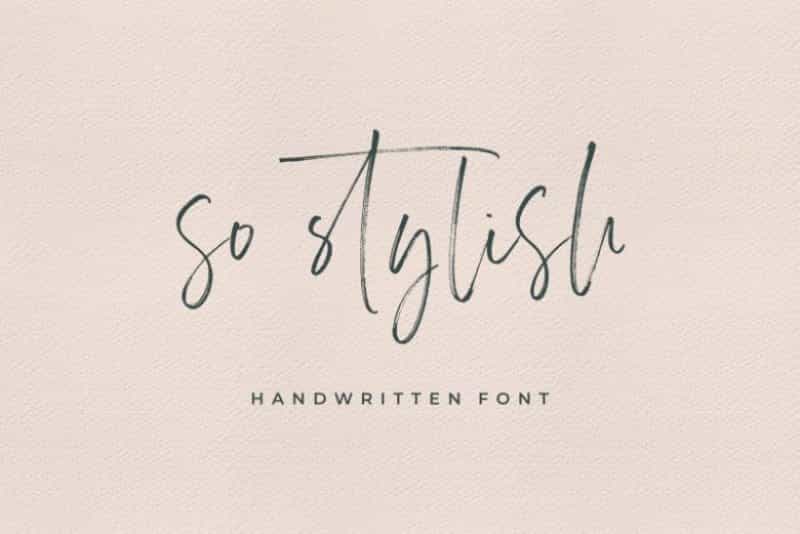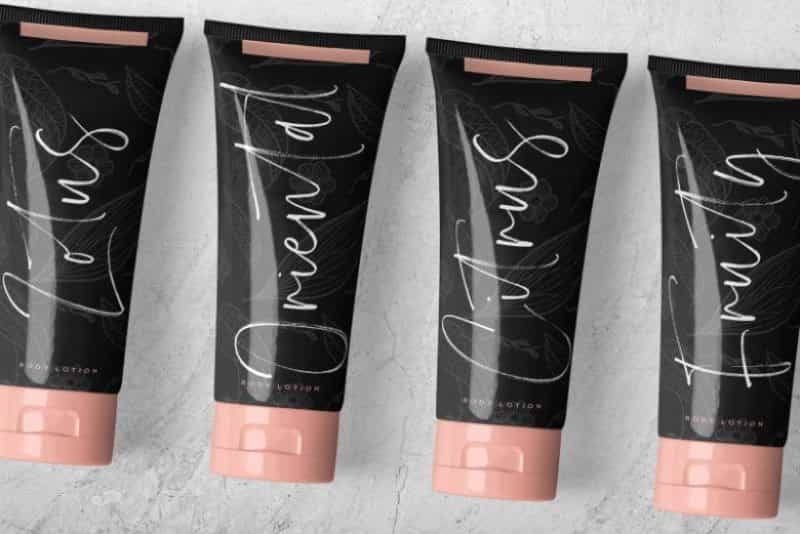
Marriott is a classy handwritten font with an incredible brush stroke which makes it to look natural. Marriott gives out a warm and classy image. Marriott is crafted with a sense of joy letter by letter.